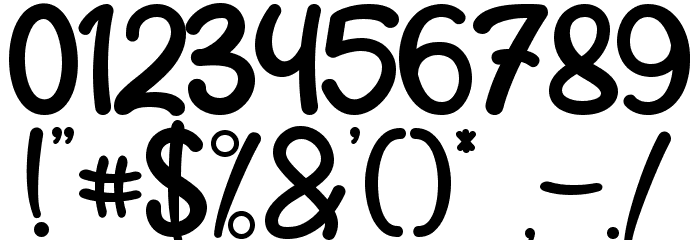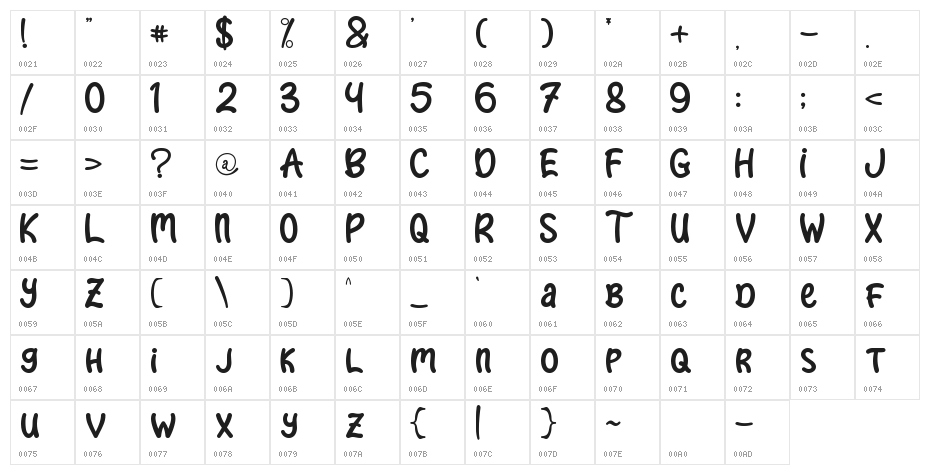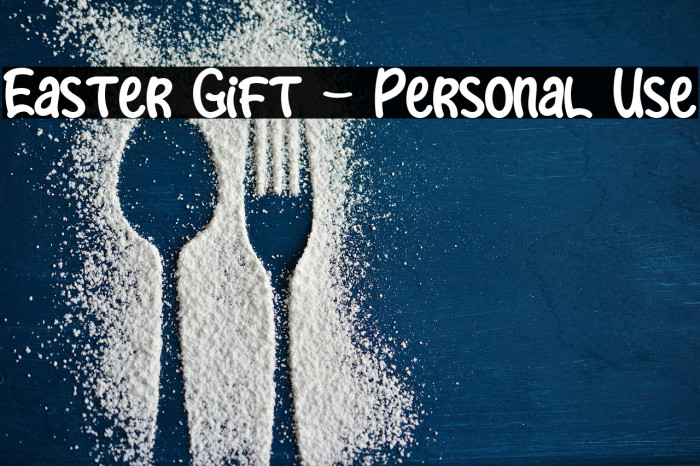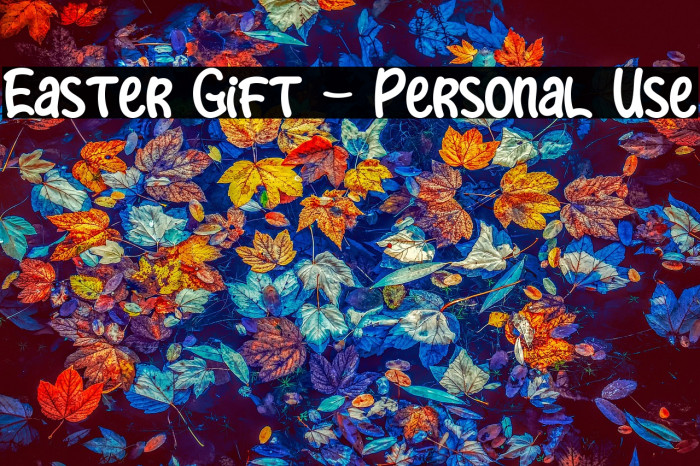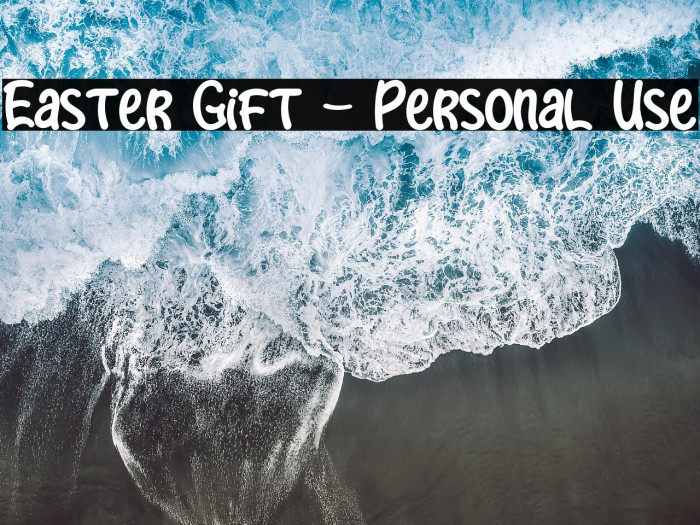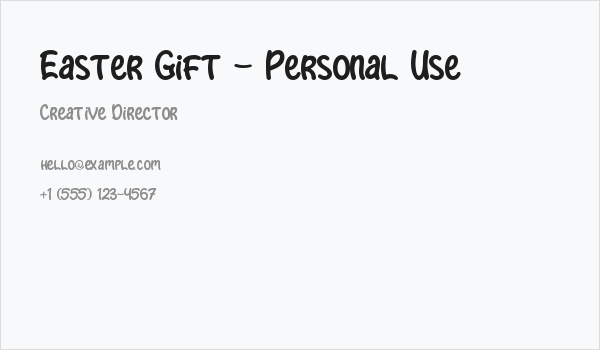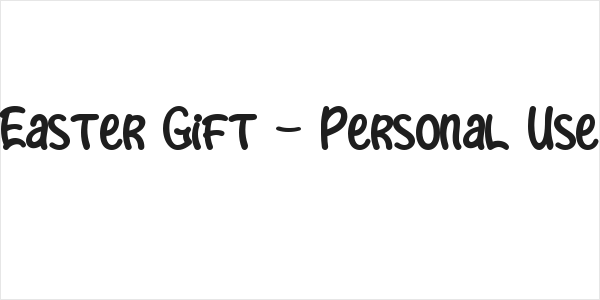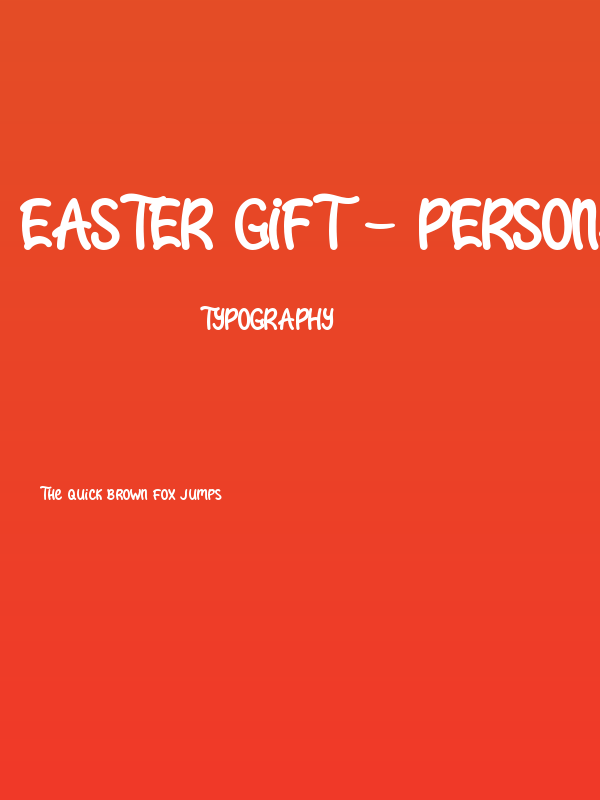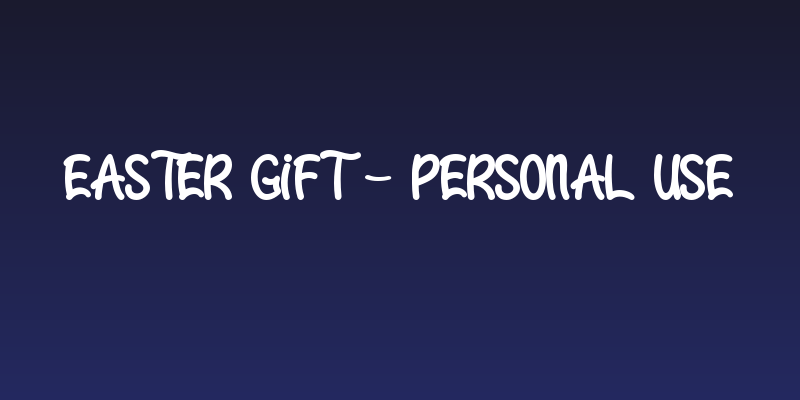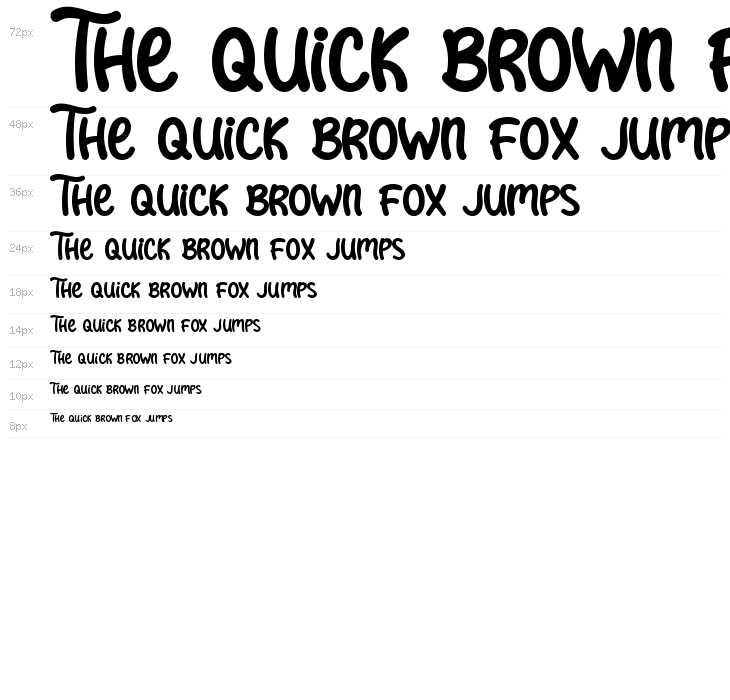
Easter Gift - Personal Use Font
Easter Gift - Personal Use Description
This playful and whimsical font features bold, rounded characters with a hand-drawn aesthetic. The uppercase and lowercase letters maintain a consistent style, with smooth curves and a slightly irregular baseline that adds to its charm. The numbers are equally rounded and playful, making them easily legible. Special characters are included, maintaining the same lively and informal style. This font exudes a sense of fun and creativity, making it ideal for projects that require a personal touch. Its bold strokes and rounded edges give it a friendly and approachable appearance, perfect for casual and informal designs.
| Proposed Projects | Ideal for greeting cards, children's books, playful branding, and DIY projects. |